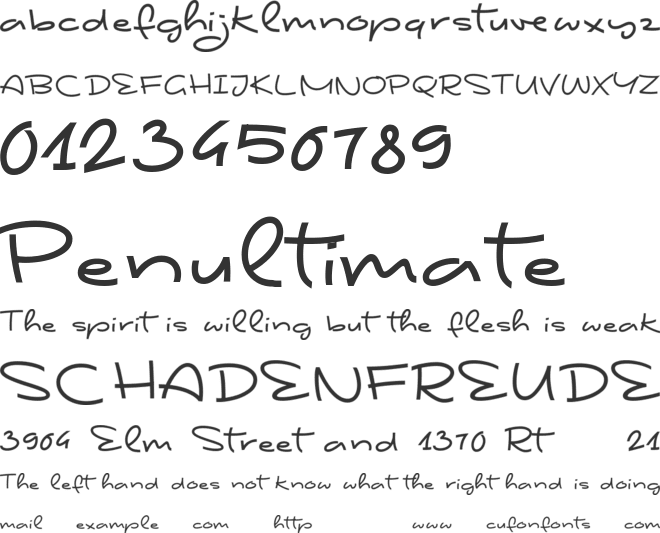
Shape Variable Script Font
Roland Hüse
SHAPE VARIABLE SCRIPT is an experimental handwriting script that has 2 versions and you can change the shapes of the letter in between with variable font control or make a kind of bouncy animation on the web if you are familiar with CSS and HTML + variable fonts.
There are ligatures for "te" "th" "tt" and "ve". To enable these, turn on "Standard Ligatures" in the Open Type panel.